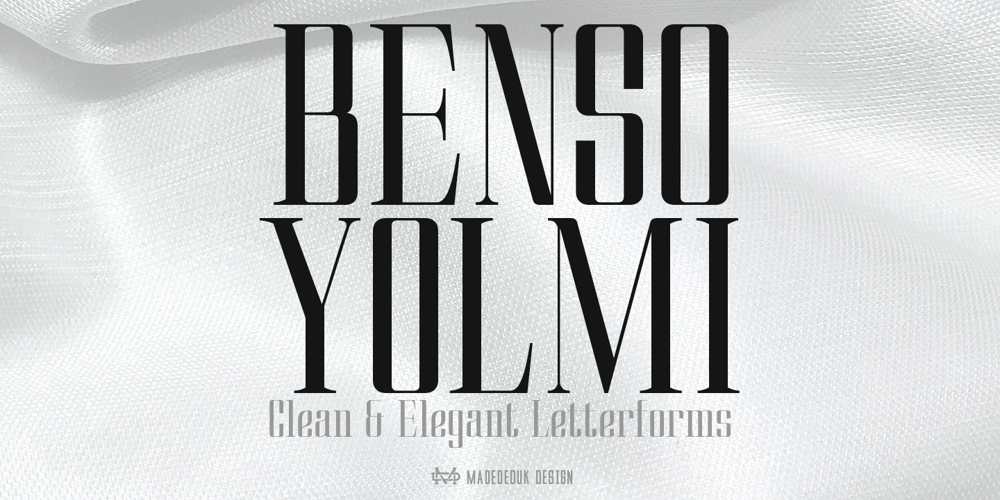
Benso Yolmi Font Family was designed by madededuk and published by madeDeduk. Benso Yolmi contains 1 styles and family package options. Benso Yolmi is a clean and modern minimalist serif font designed for clarity and simplicity. With its sleek lines and balanced letterforms, it conveys a timeless elegance that suits a wide range of applications.Feature Uppercase & Lowercase Number & Symbol International Glyphs Multilingual support Alternative Ligature Hope you enjoy it.